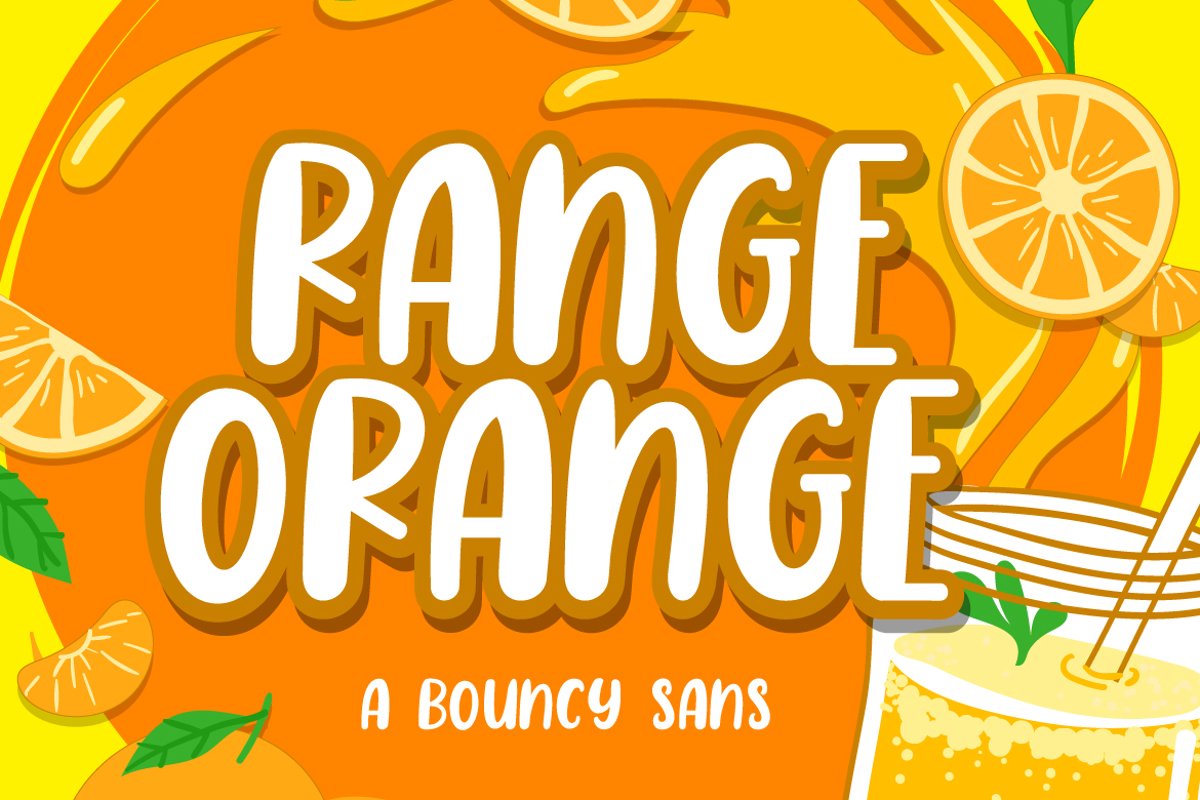
Range Orange - a Bouncy Sans
Range Orange
Introducing of our new product the name is Range Orange a Bouncy Sans Font. Range Orange  inspired by Comic Style this font is a fun theme very good for kids, comic, food logo, food menu, wedding invitation, logotype and etc